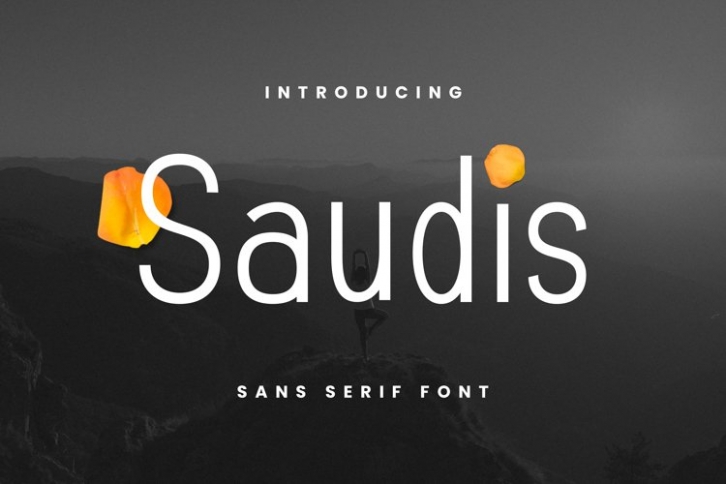
Saudis is a trendy and unique font with an authentic style. It was designed by plusstore and it's a great choice for creative people who need such a font. It was released on October 24, 2021 and the file size is 20.47 MB. Saudis will add an organic vibe to any design idea!